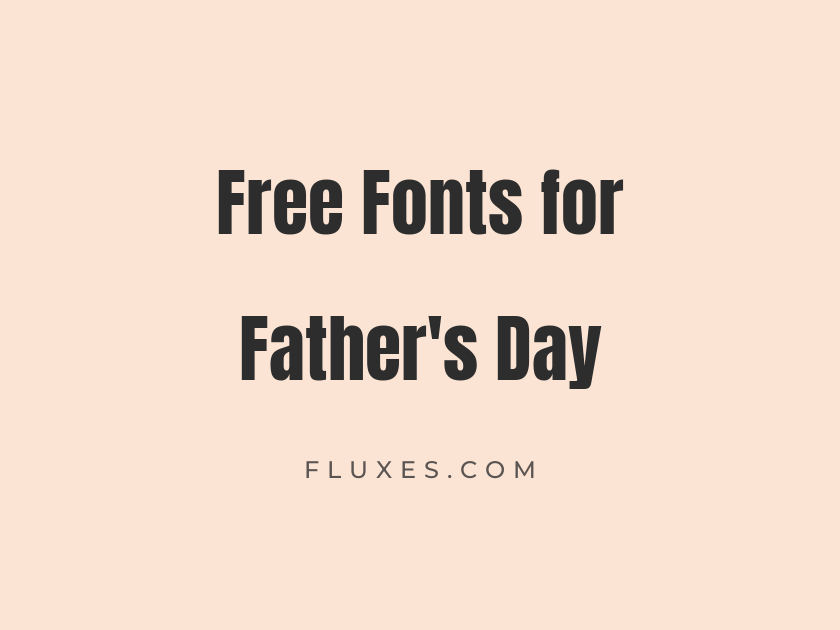
63 Best Free Fonts for Father’s Day
Father’s Day design work covers a wide range of moods: a bold “World’s Best Dad” mug, a handwritten card from a kid, a rugged workshop-themed gift tag, a classy dinner invitation, or a funny meme for social media. Because the holiday spans everything from sentimental to silly, a strong type library needs headline weight, casual handwriting, vintage badge charm, and a few elegant serifs for the more heartfelt messages.
1. Anton
Anton is about as loud as a sans-serif gets while still staying clean and legible. Its extreme weight and tight spacing make it a natural pick for poster-style headlines, mug wraps, and big bold gift tags where the message needs to read from across the room.
2. Oswald
Condensed, sturdy, and endlessly practical, Oswald slots into everything from BBQ menu cards to Instagram graphics without ever feeling out of place. It pairs comfortably with almost any handwritten script for a subhead, which makes it a safe workhorse when you need one dependable font to anchor a design.
3. Bebas Neue
This all-caps display font has become a default choice for badges, banners, and product labels, and for good reason. It carries a confident, no-nonsense energy that suits gifts aimed at the classic tool-belt, grill-tending dad.
4. Archivo Black
Archivo Black is dense and heavy enough to dominate a t-shirt design at a glance. It reads a little more modern and neutral than Anton or Bebas Neue, so reach for it when the rest of the layout is minimal and you want the type to carry all the personality.
5. Fjalla One
A narrower, quieter cousin to the big impact fonts, Fjalla One works well as a subheadline or short caption under a bolder title. It stays crisp even at small sizes on printed tags.
6. Passion One
Rounded shoulders and a friendly weight give Passion One a warmer feel than most bold display fonts, which makes it a good fit for lighthearted cards that still want visual punch.
7. Alfa Slab One
Chunky, slab-footed, and a little tongue-in-cheek by nature, Alfa Slab One is tailor-made for the joke mugs and novelty gift tags that make up half of Father’s Day shopping. It gets muddy at very small sizes, so save it for headlines rather than body copy.
8. Bungee
Bungee brings a street-sign, urban-poster energy that suits a more playful, modern Father’s Day graphic, especially for younger dads or gag gifts. Its blocky uppercase letterforms are built for short punchy phrases rather than long sentences.
9. Bungee Shade
The layered shadow version of Bungee adds instant depth and a retro-arcade feel, useful for a single standout word on a card cover or social graphic. Keep the surrounding design simple since this face already does a lot of visual work on its own.
10. Teko
Tall, narrow, and a little athletic in feel, Teko suits sports-loving dads and works nicely on scoreboard-style graphics or team-themed cards.
11. League Gothic
There is a vintage, hardware-store quality to League Gothic that fits garage and workshop themes especially well. It has been a favorite for retro signage projects for years, and it still holds up as a free alternative to old grotesque display faces.
12. Staatliches
Staatliches has a slightly hand-cut, poster-stamped character that gives it more warmth than a purely geometric bold font. It shines on short banner text and event-style graphics.
13. Russo One
For the dad who loves gadgets, cars, or anything futuristic, Russo One brings a rounded, slightly sci-fi edge that reads as confident without tipping into novelty.
14. Bowlby One
Rounded, inflated, and unapologetically cheerful, Bowlby One feels like it was built for a comic-book headline. It is a strong match for anything leaning into dad-joke humor.
15. Luckiest Guy
Few free fonts capture cartoon-style bravado as well as Luckiest Guy. Its bouncy baseline and thick strokes make it the obvious choice for a card cover built entirely around a punchline.
16. Bangers
Bangers is pure comic-book shout, complete with a slight jitter to the baseline that mimics old-school lettering. Use it sparingly, since a whole paragraph set in it becomes exhausting to read.
If you are designing a whole suite, a card, a gift tag, and a social graphic, pick one headline font and one text font and reuse them everywhere. Consistency reads as more polished than variety.
Whether the goal is a heartfelt printed letter, a joke mug design, or a quick social media graphic, there is a free font here suited to the mood. Download a few, try them against your own photos or copy, and let the pairing guide which direction the design ultimately takes.